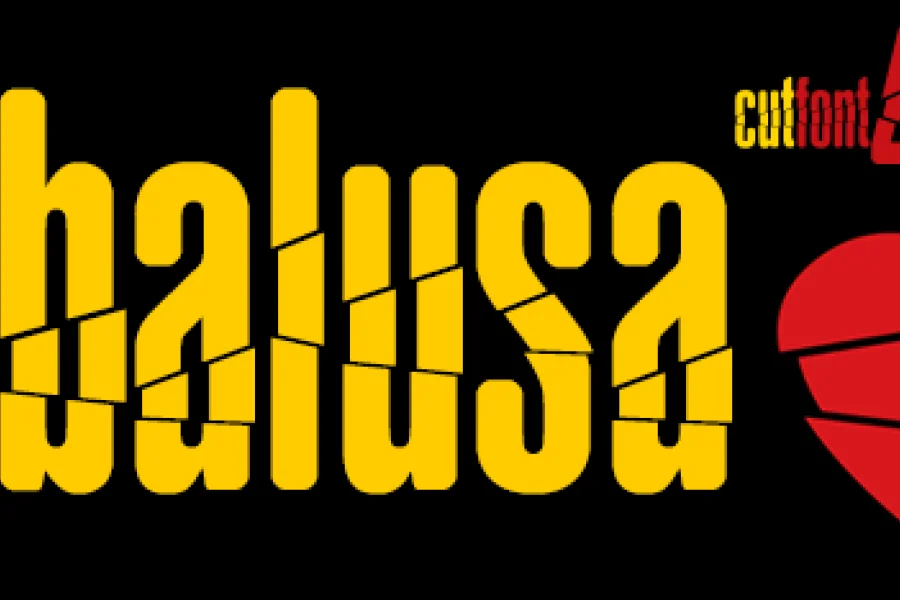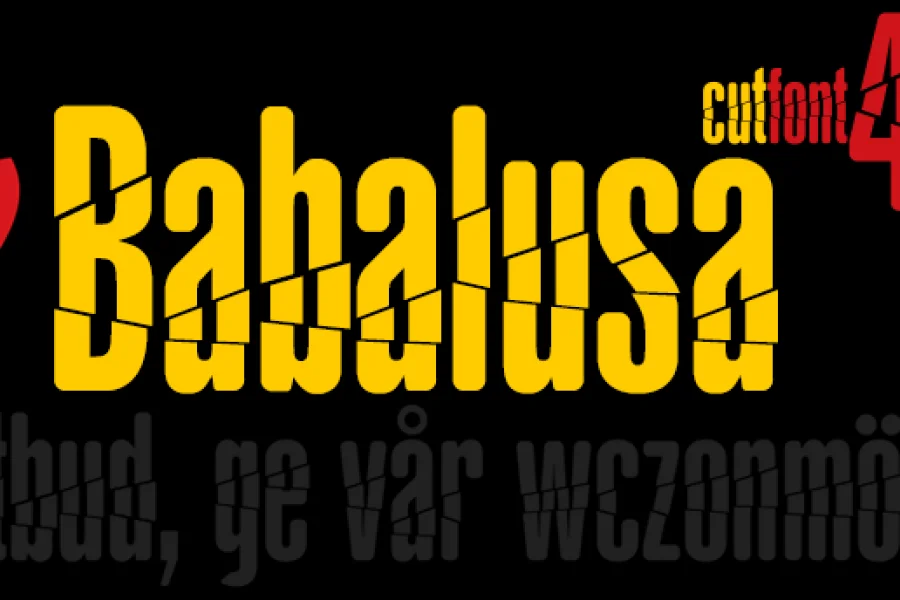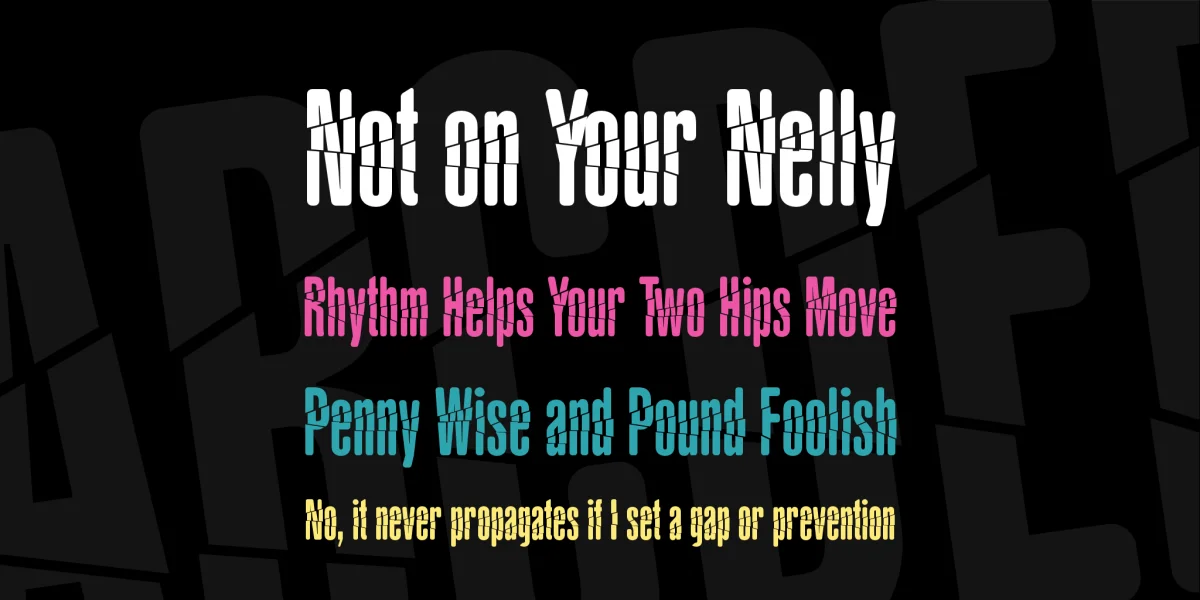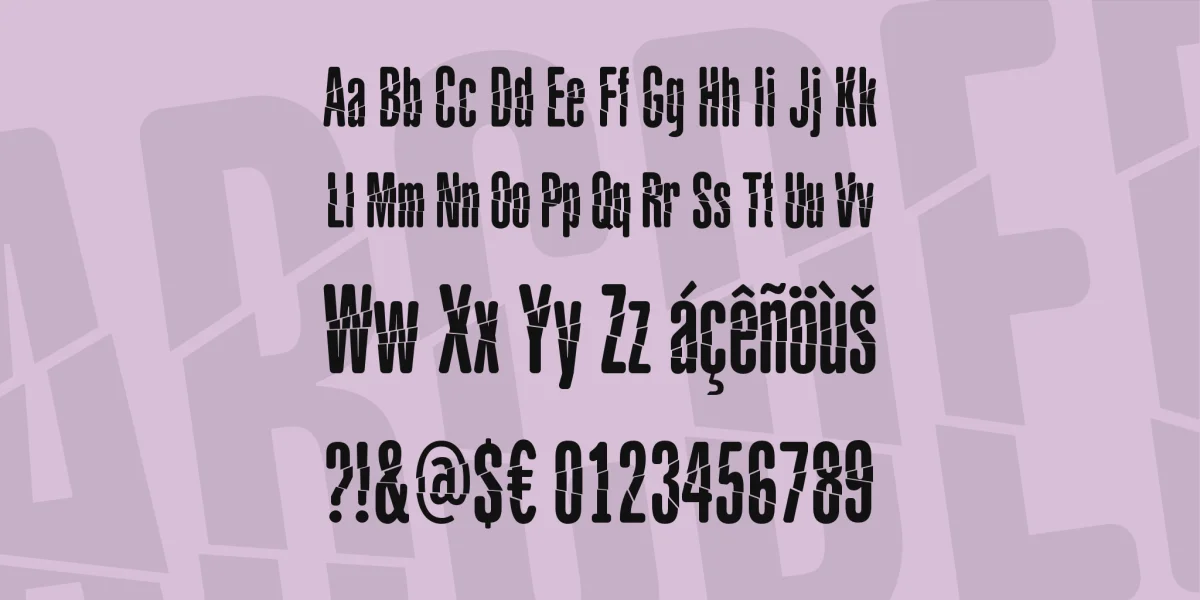
This typeface is an experiment in cracked and grotesque mutilation on my previous typography Sans Ultra Yacarena. This exercise brings to cut a stylistic timing source (mode) of which is not known until they endure in graphic design, meanwhile kicking butt in compositions poster design, Publicity or headlines editorial design.
Babalusa is a crocodile glasses "RayBan" American Caiman crocodilus having broken hearted female alligator Yacarena she met on a junket by brasileiro dock.
The Babalusa typography has a character set 420 characters (Latin Extended) with support for any European language or European center. Latin-Extended Character Set & Supported Languages: Croatian, Czech, Danish, Dutch, Inglés, Esperanto, Estonian, Finnish, French, German, Hungarian, Irish, Italian, Latvian, Lithuanian, Norwegian, Polish, Portuguese, Romanian, Serbian, Slovak, Slovenian, Spanish, Swedish, Turkish.